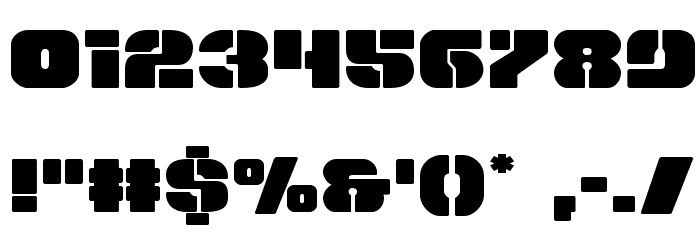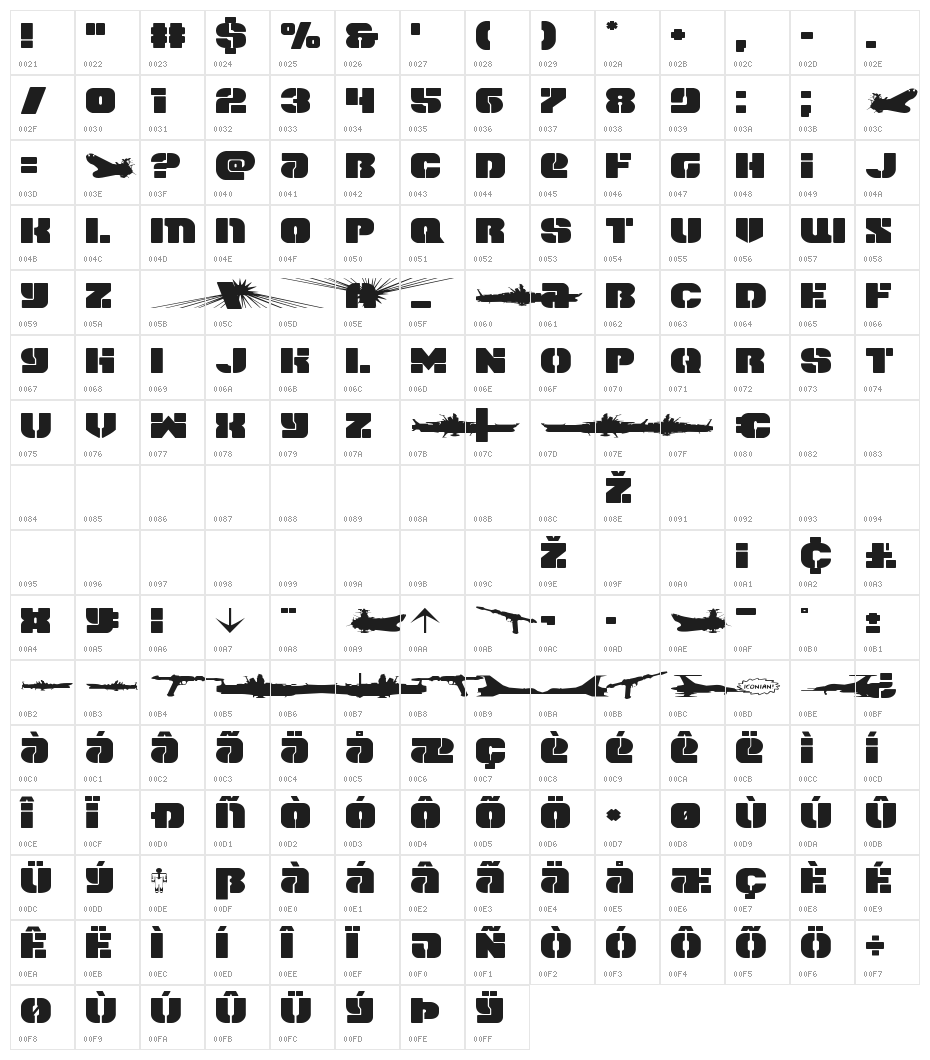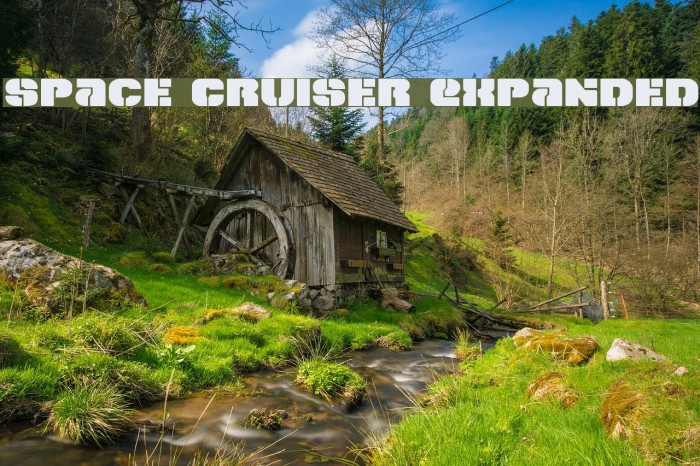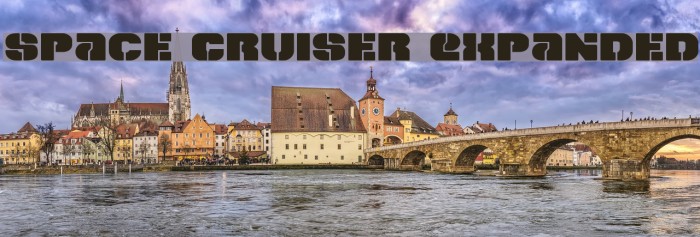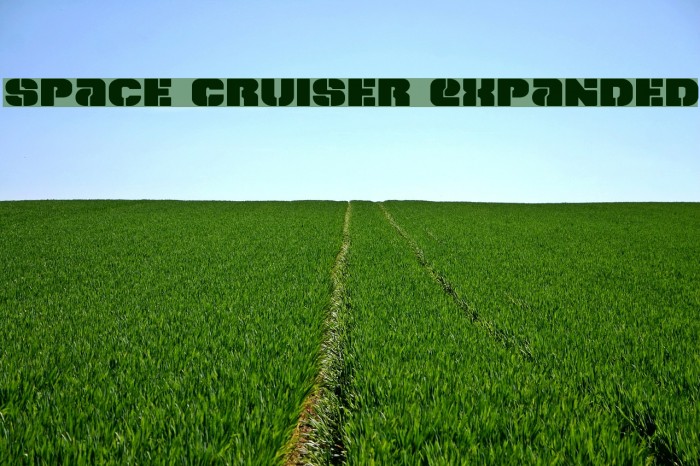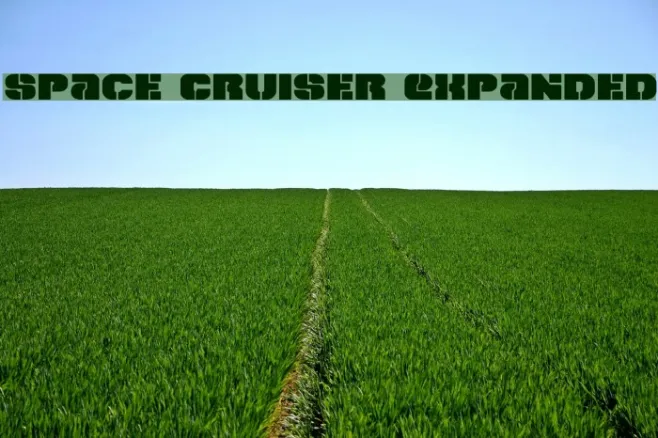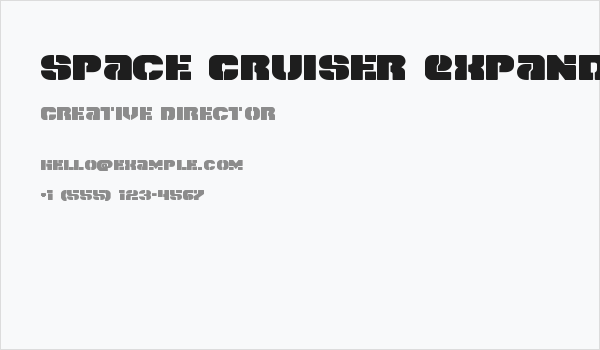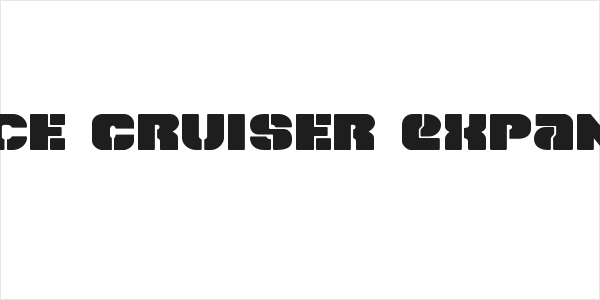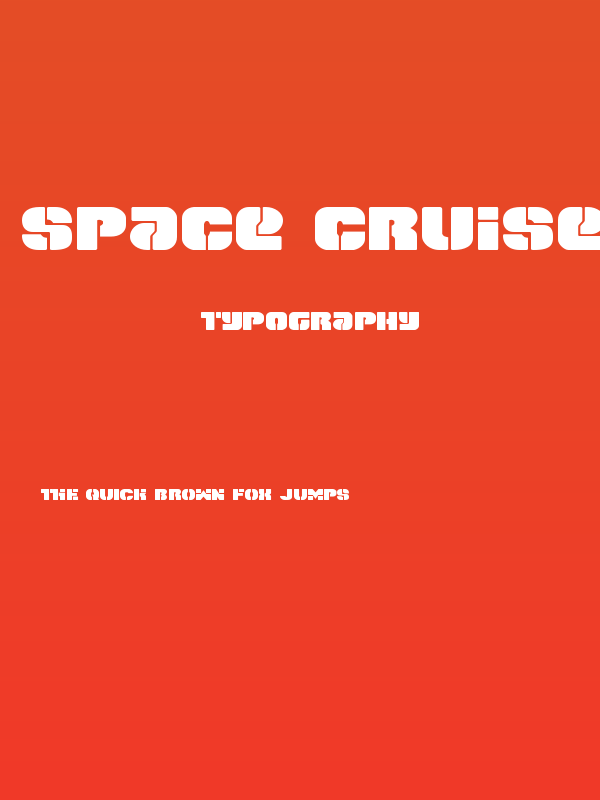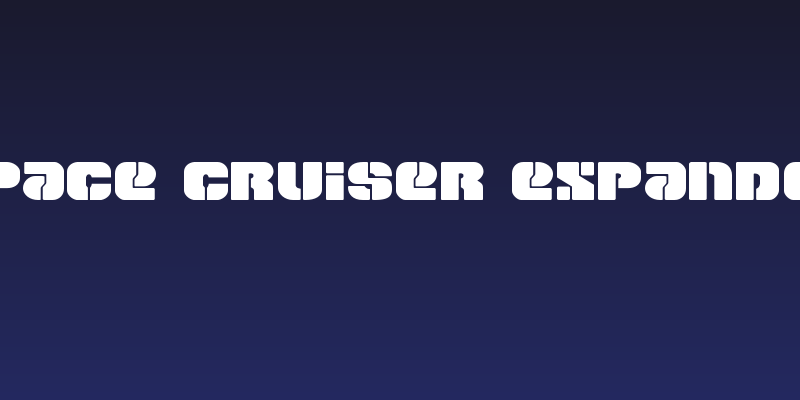
Space Cruiser Expanded Font
Space Cruiser Expanded Description
This font features a bold, futuristic design with a distinctly expanded width. Each character is crafted with a blocky, geometric style that conveys a sense of strength and modernity. The uppercase letters are particularly striking, with sharp angles and a consistent thickness that maintains readability while adding a unique visual flair. The numerals and special characters follow the same design principles, ensuring a cohesive look across all text elements. This font is ideal for projects that require a bold statement, such as sci-fi themed designs, technology branding, or any creative work that aims to capture attention with a modern, industrial aesthetic.
| Proposed Projects | Ideal for sci-fi themed designs, technology branding, posters, and attention-grabbing headlines. |